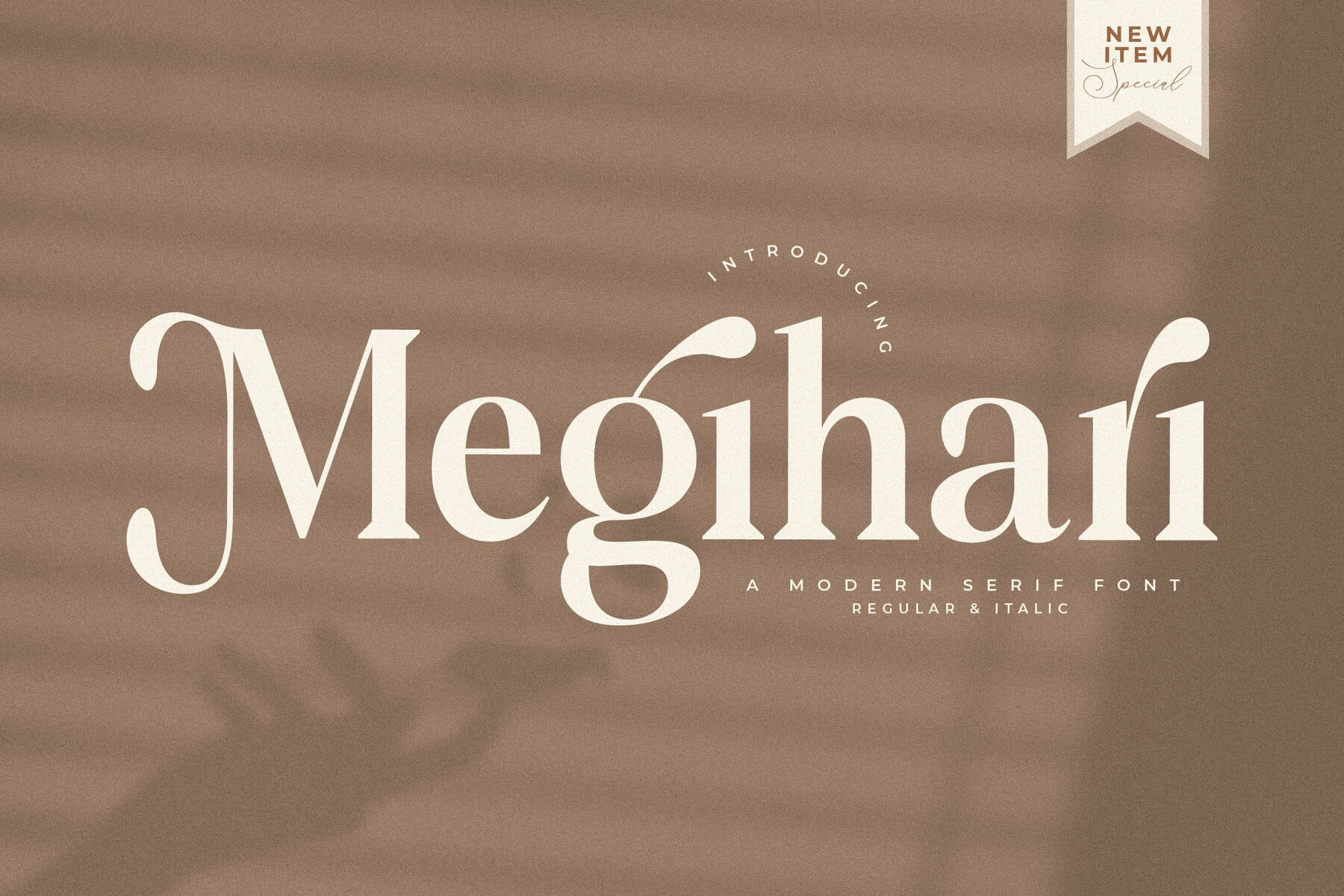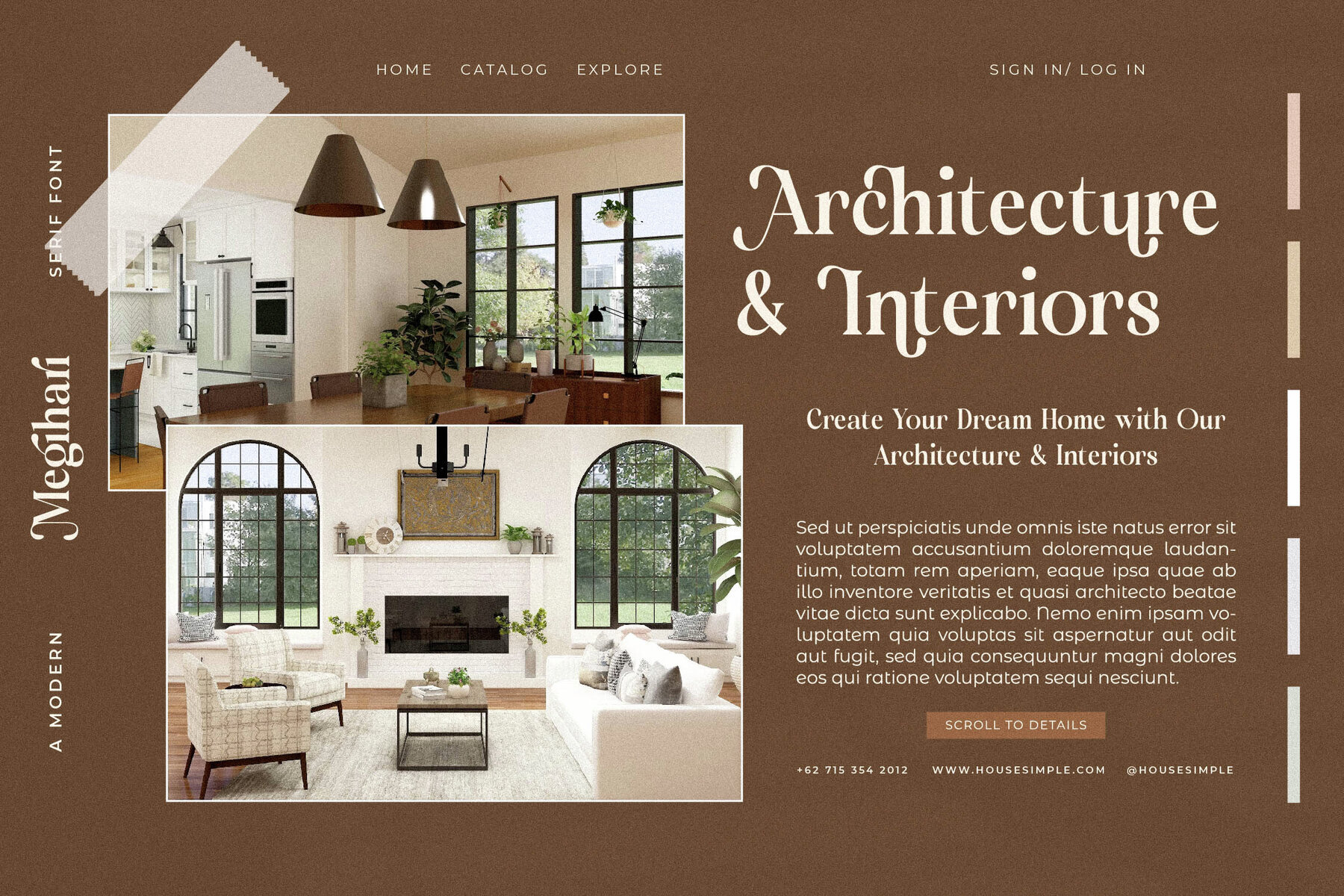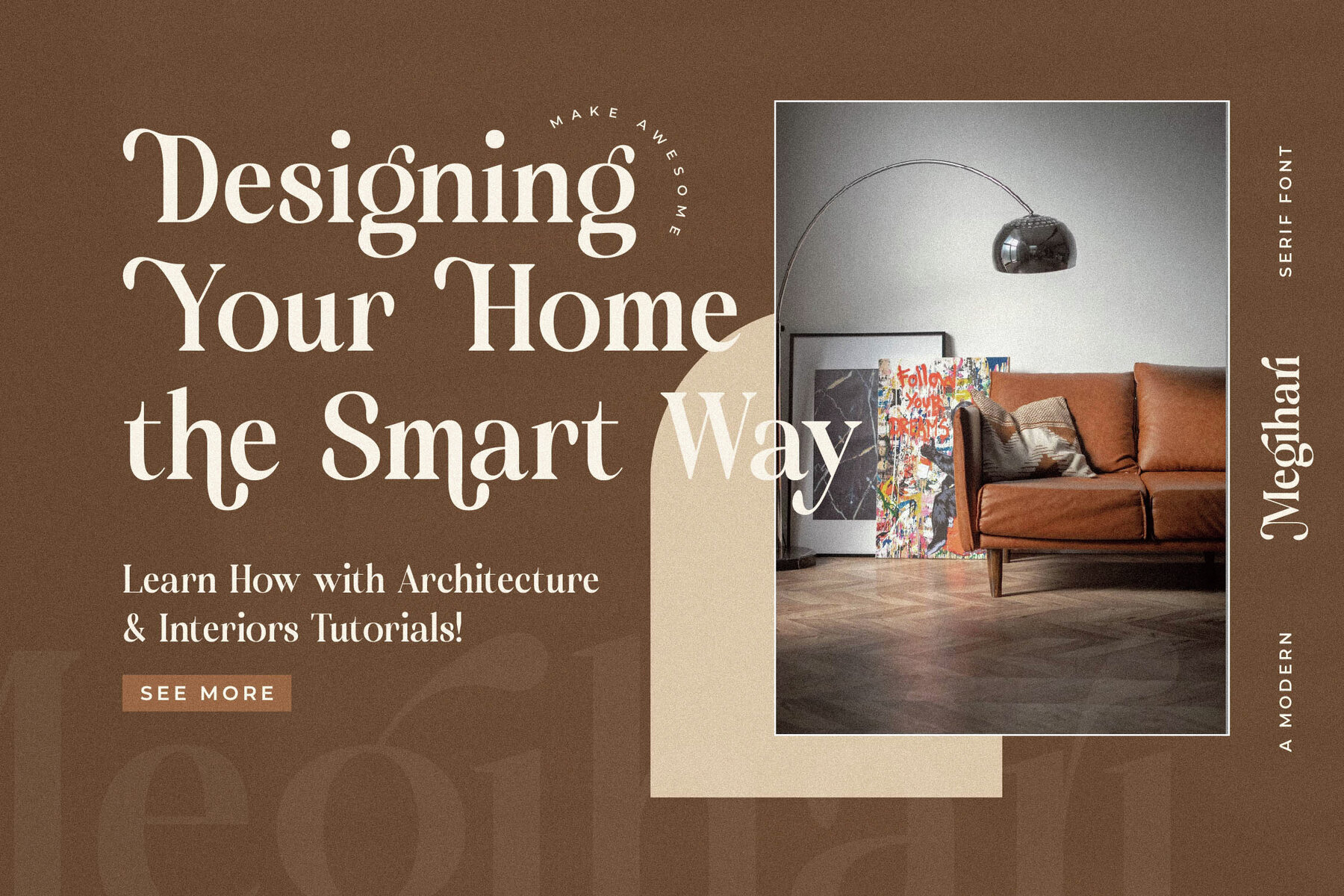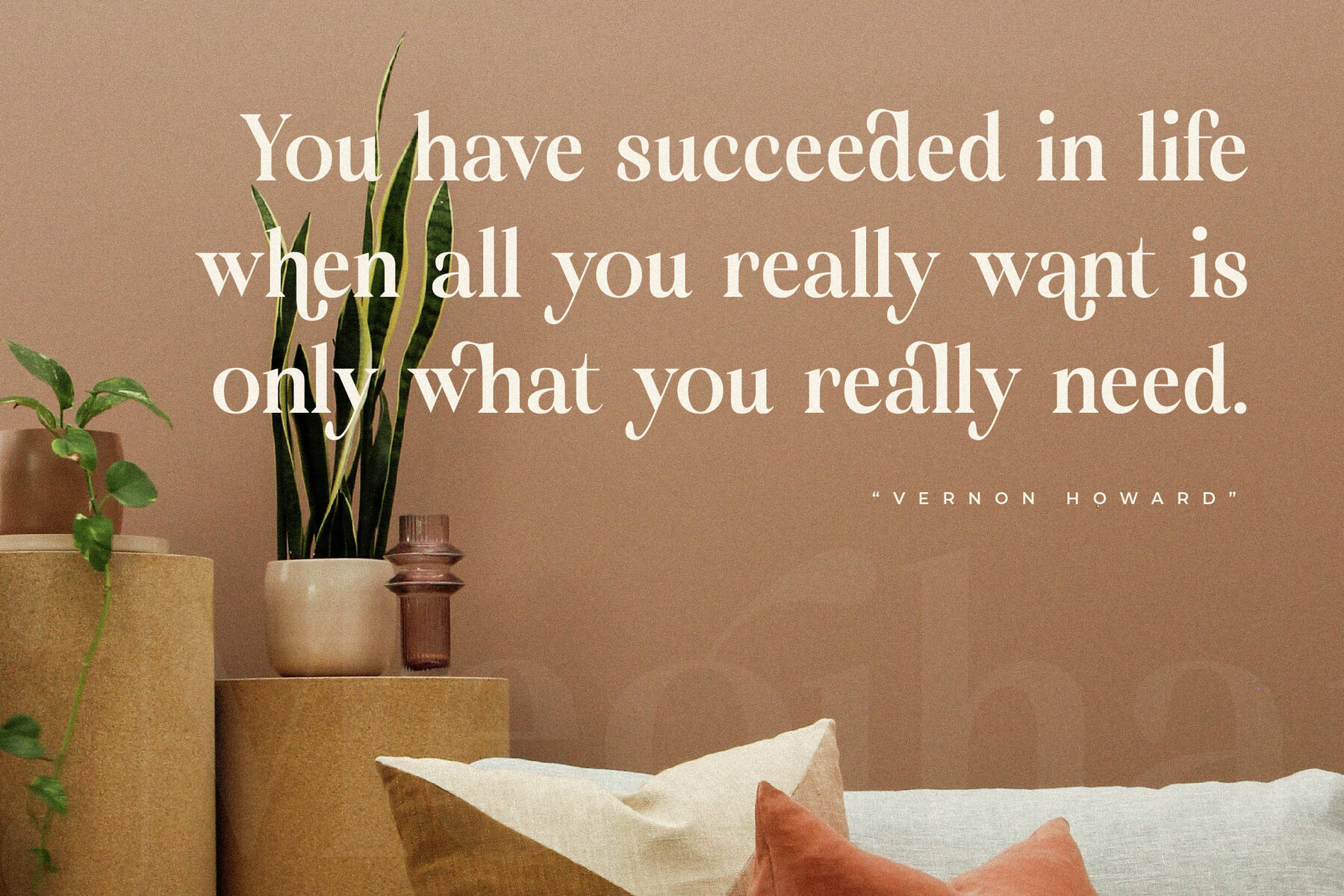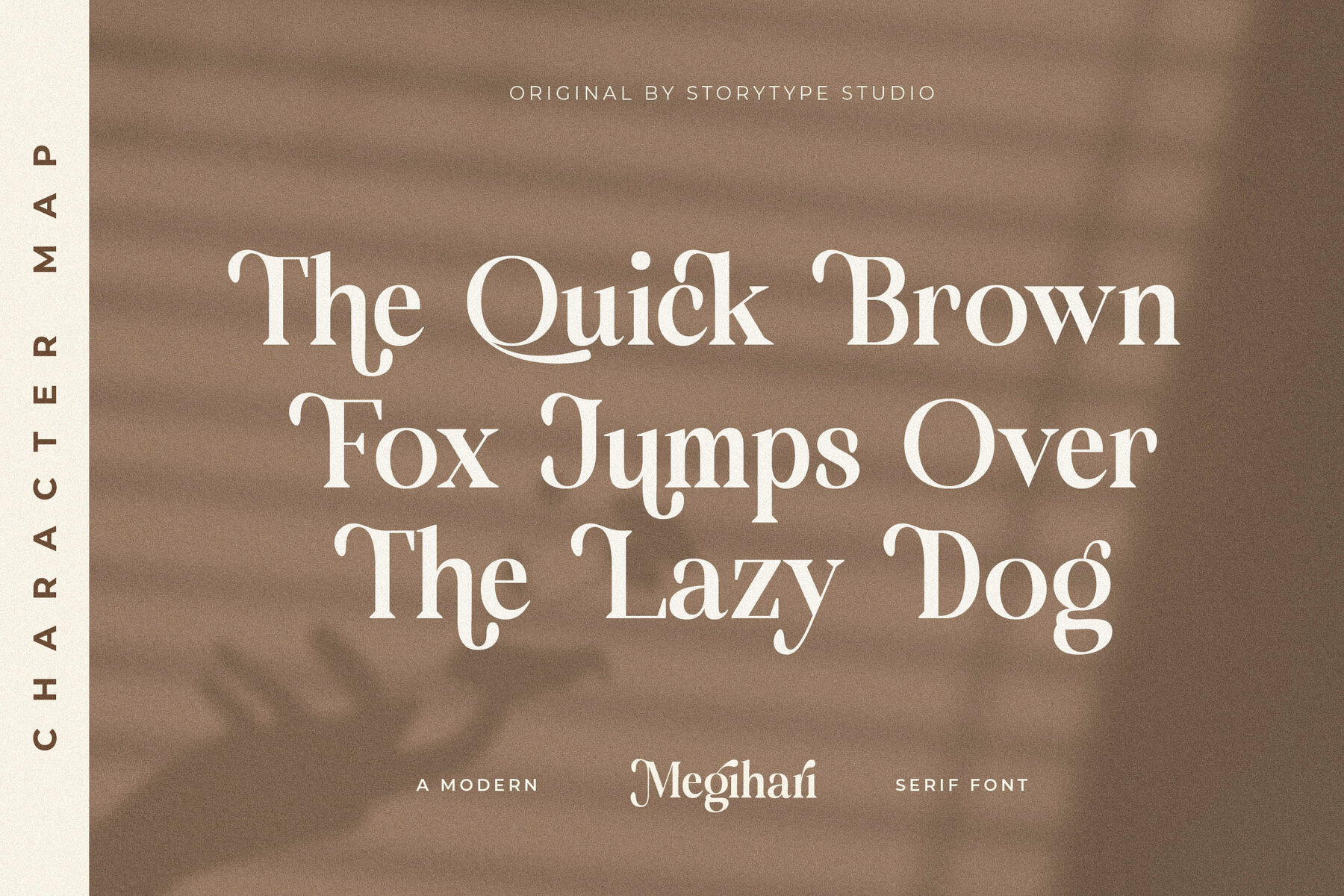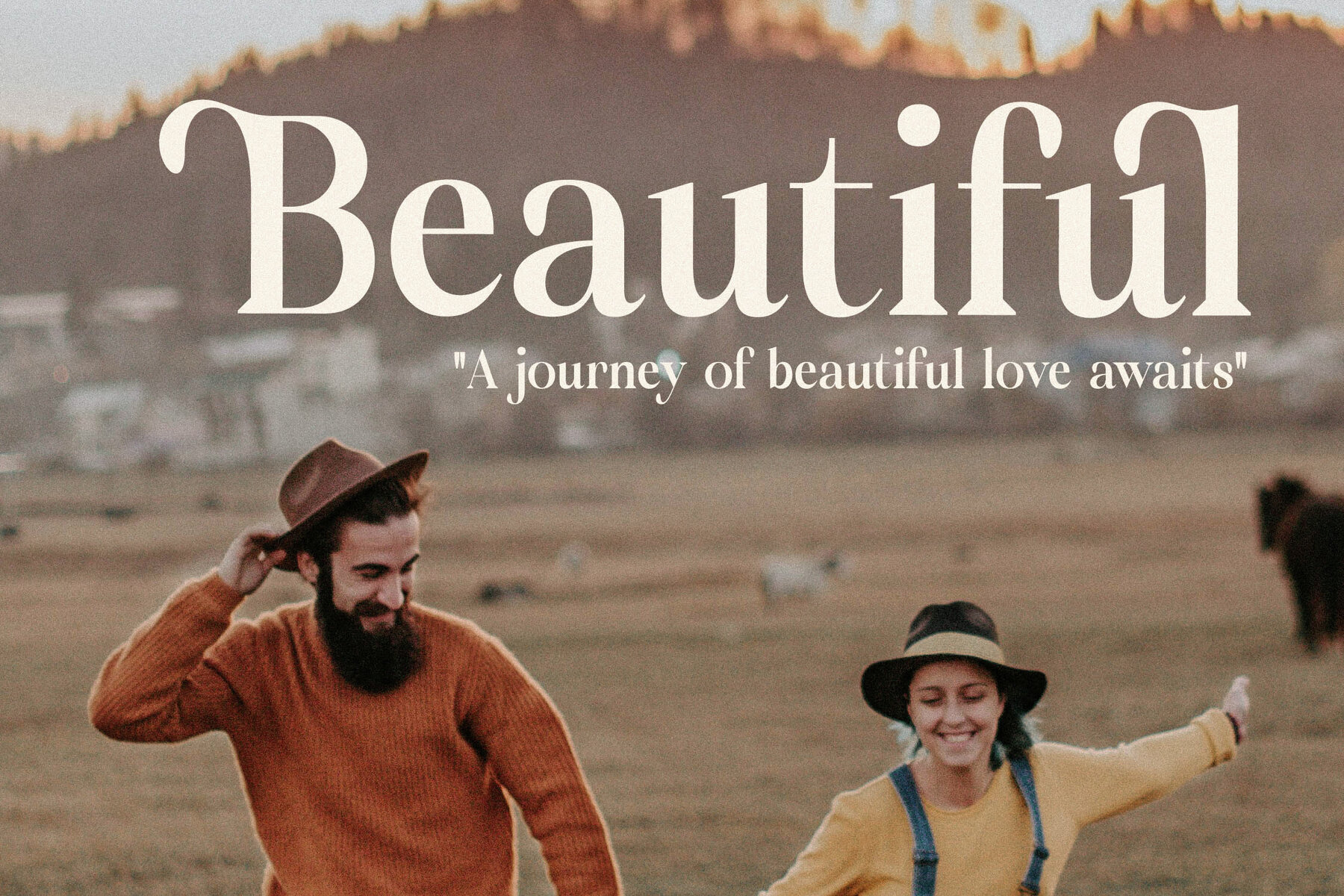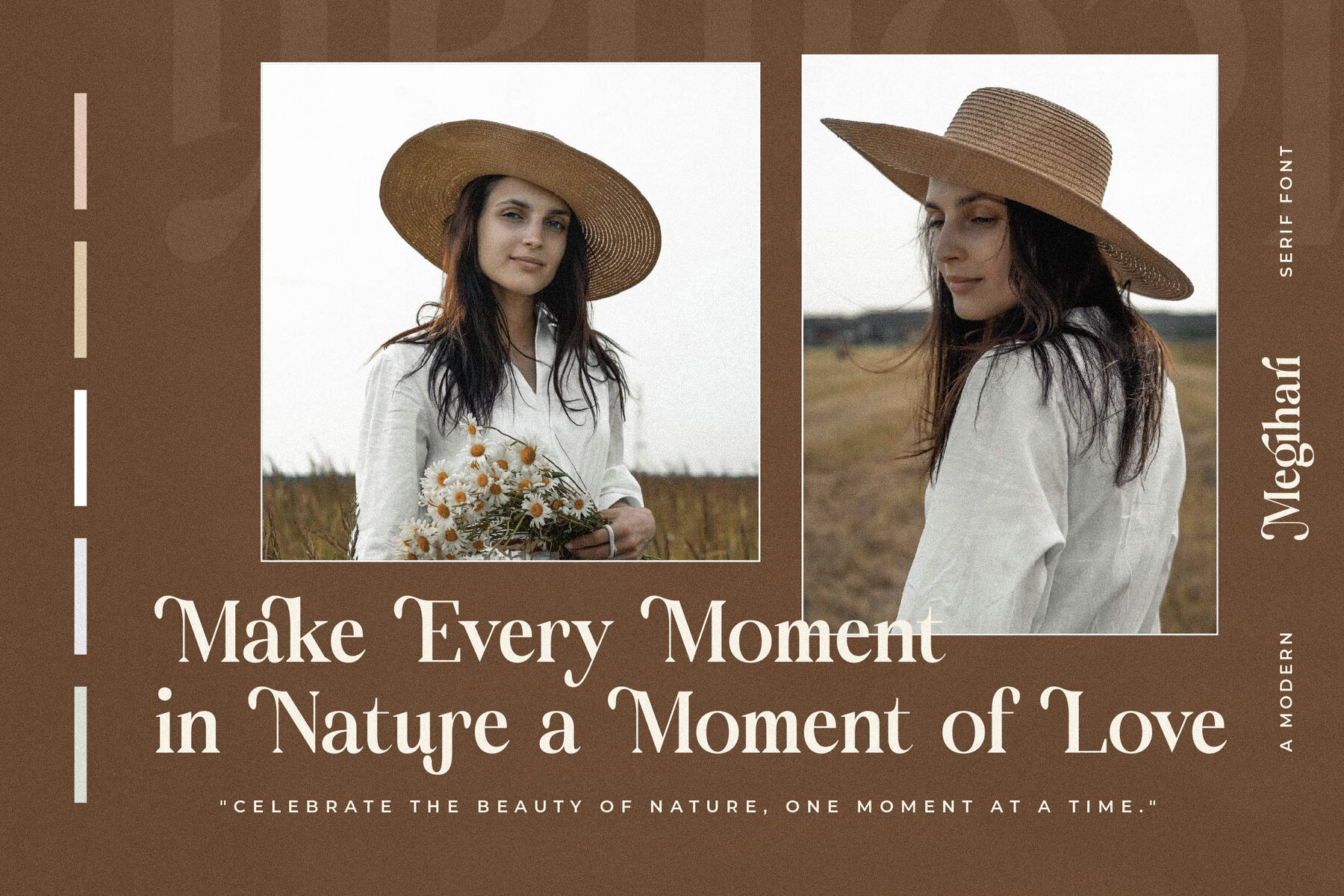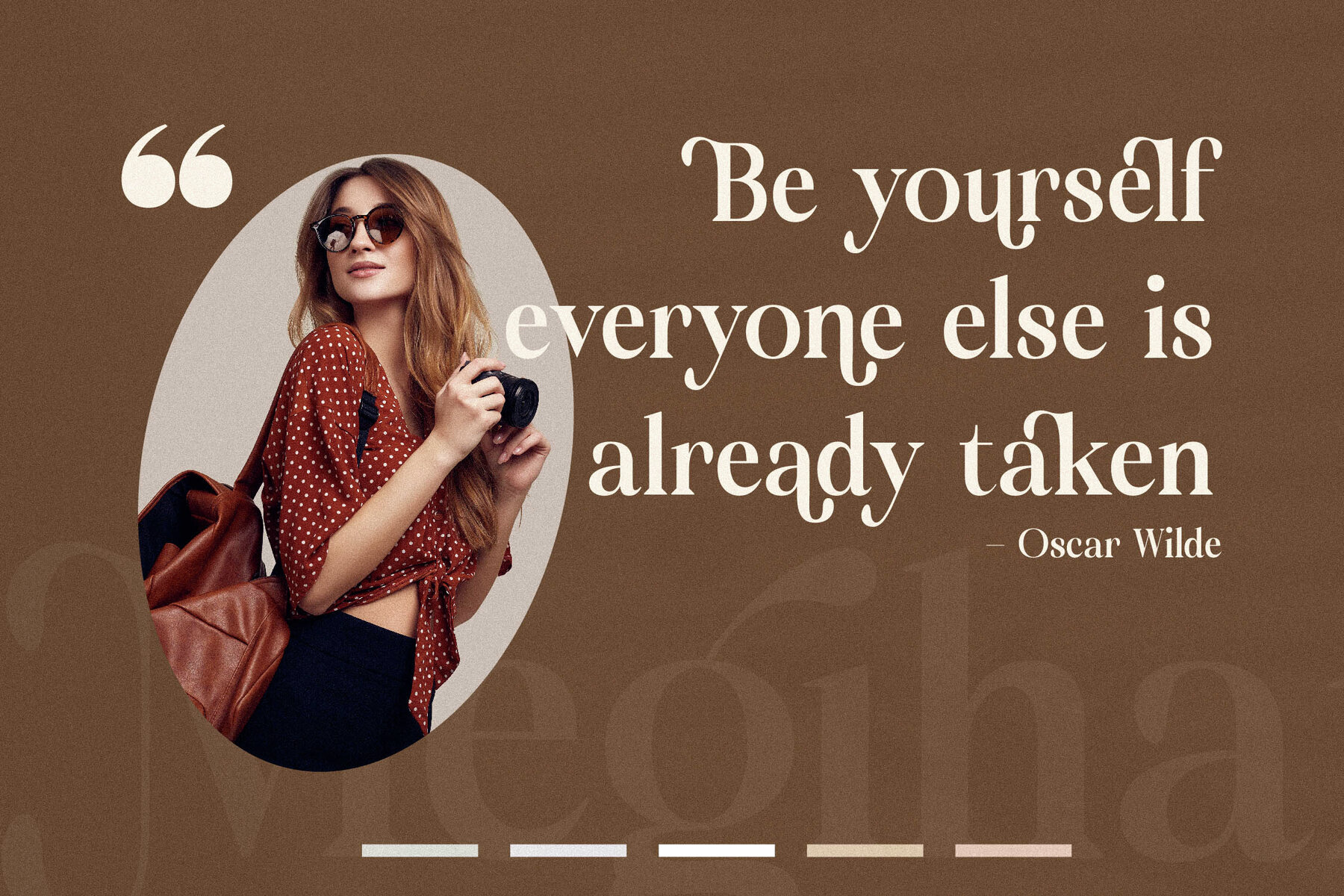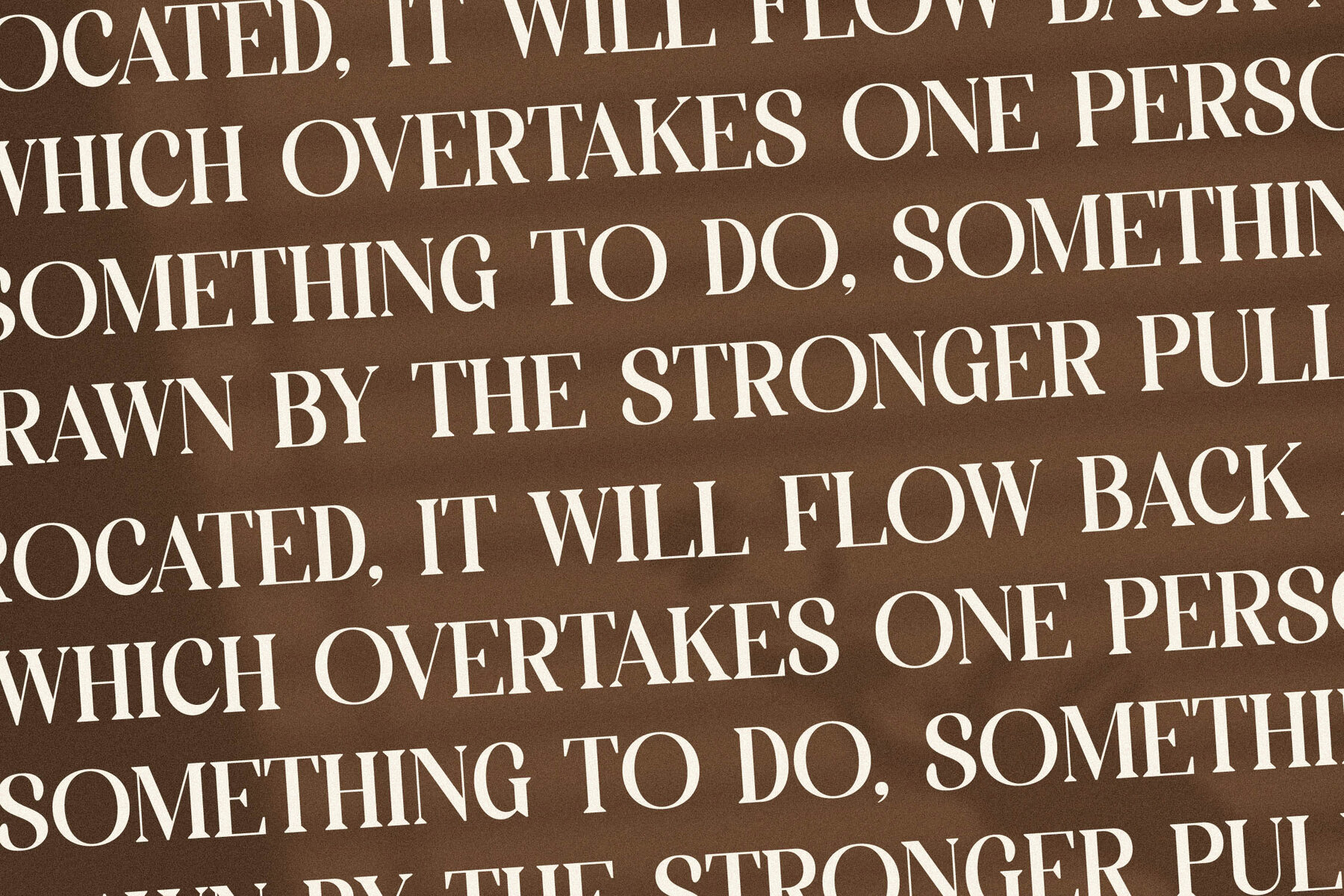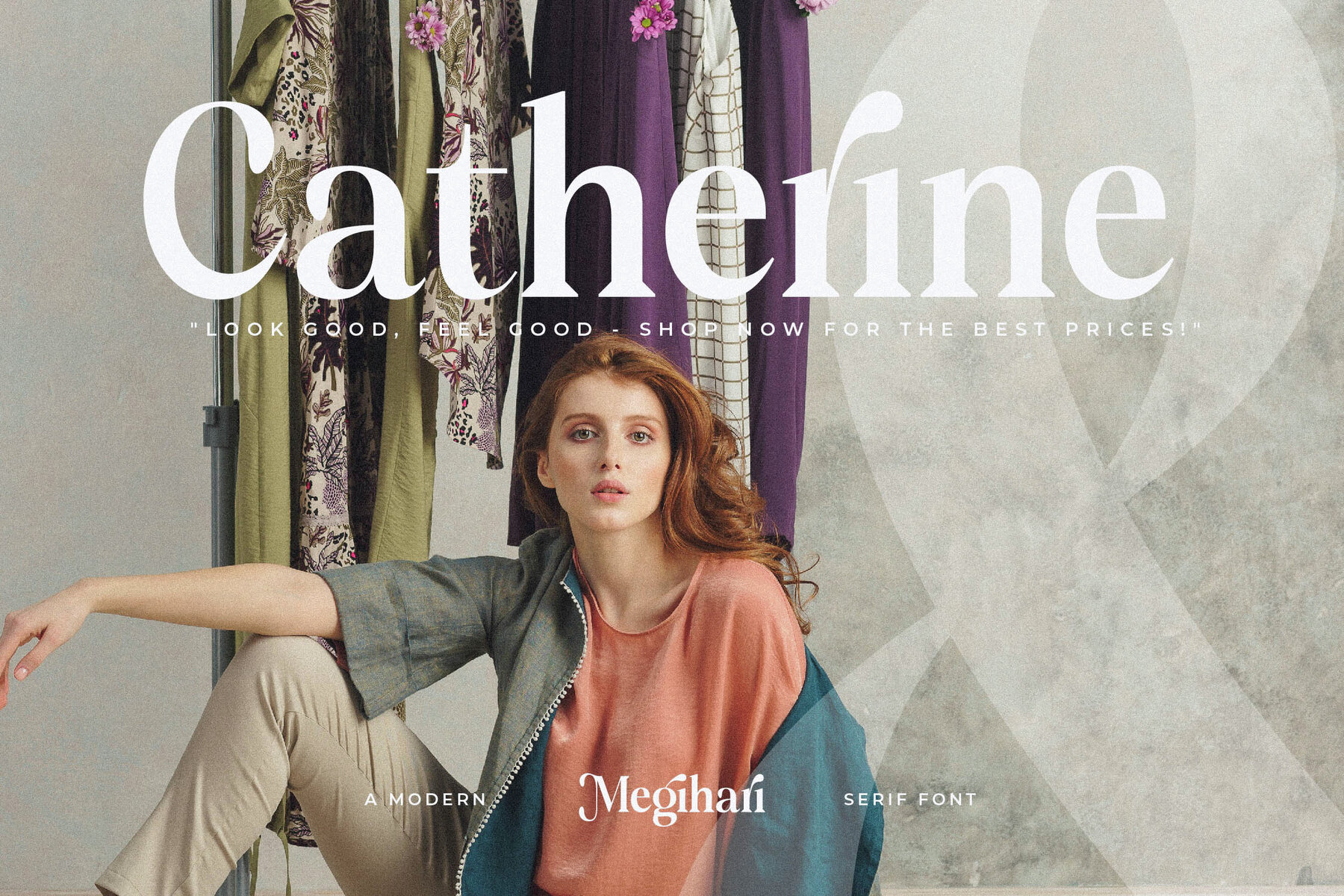
Megihari Font
Immerse yourself in the sophisticated allure of the Megihari typeface. This modern yet classic serif font, crafted by Storytype Studio, offers a distinctive style and contemporary flair. Ideal for projects that demand elegance and luxury, Megihari is perfect for logos, book or movie titles, fashion brands, magazines, clothing designs, and inspirational quotes.Megihari Typeface